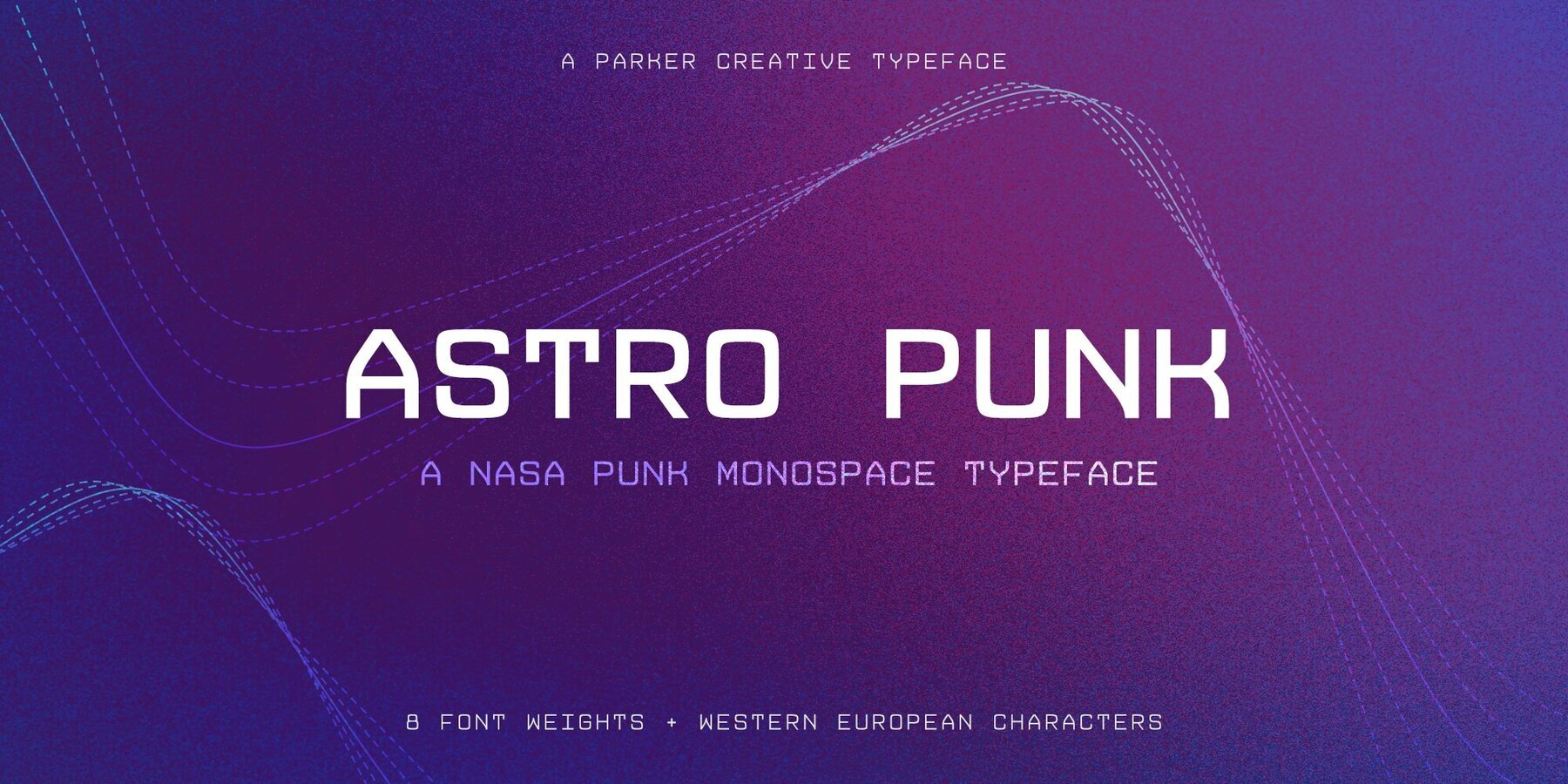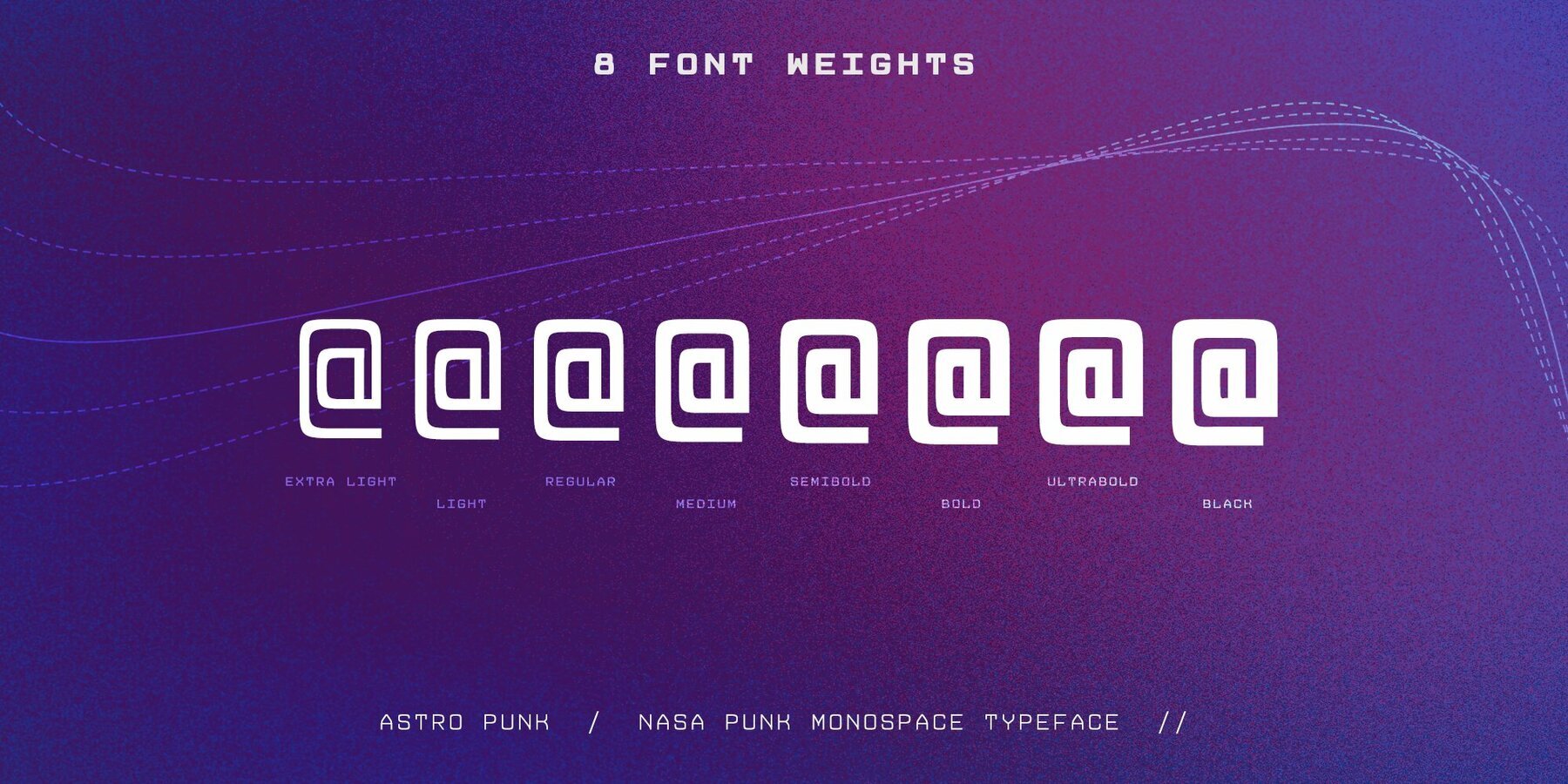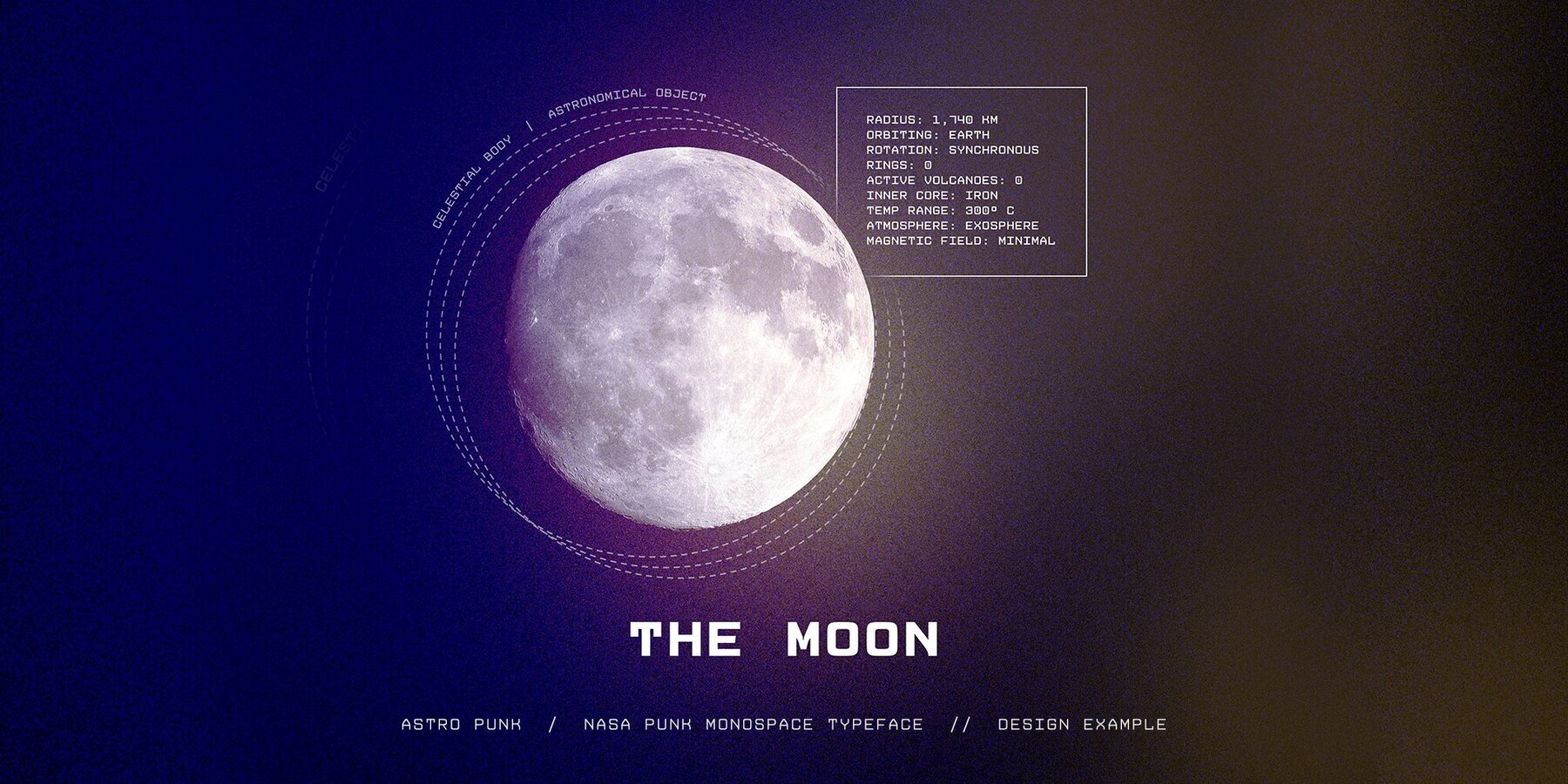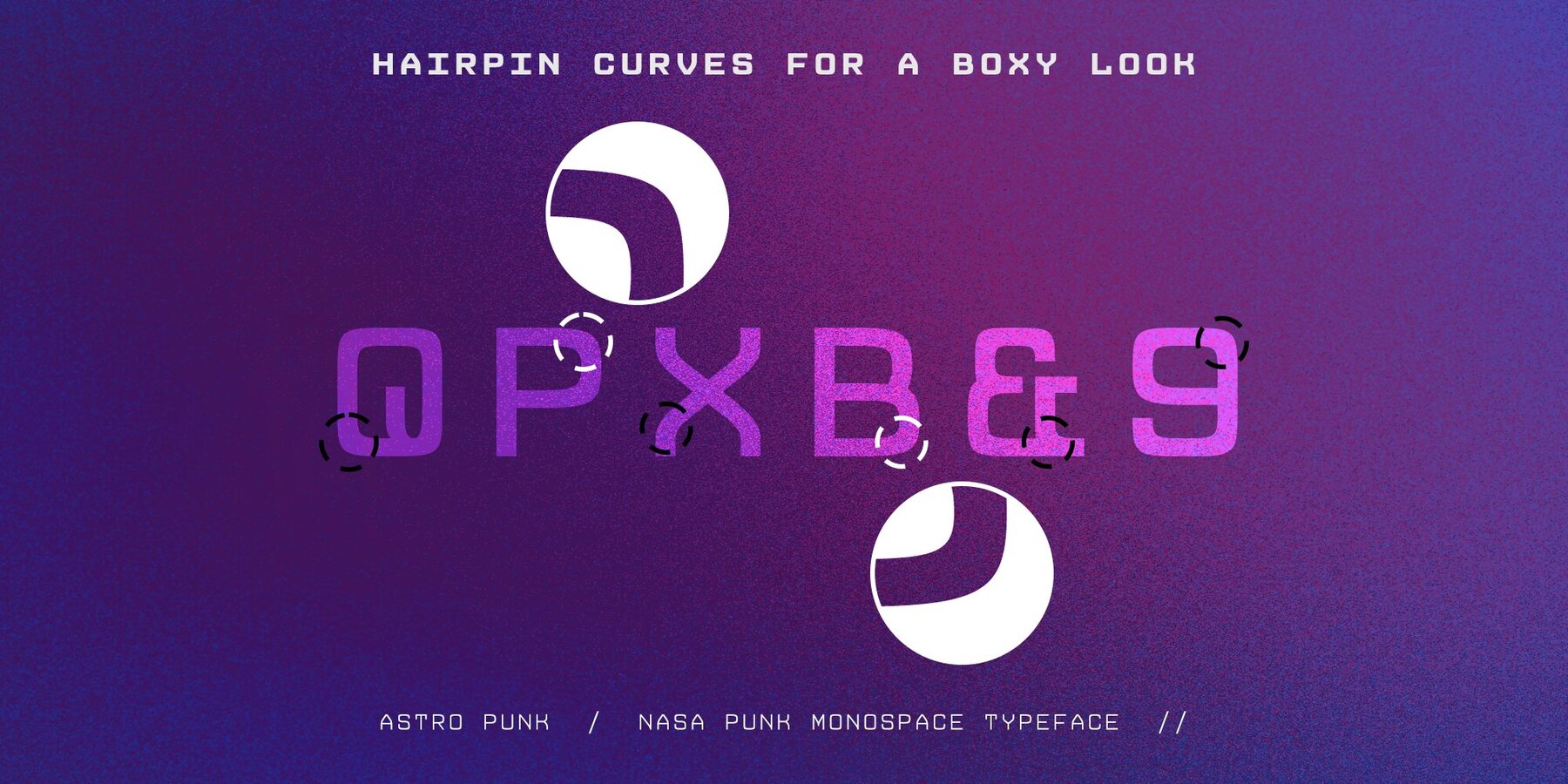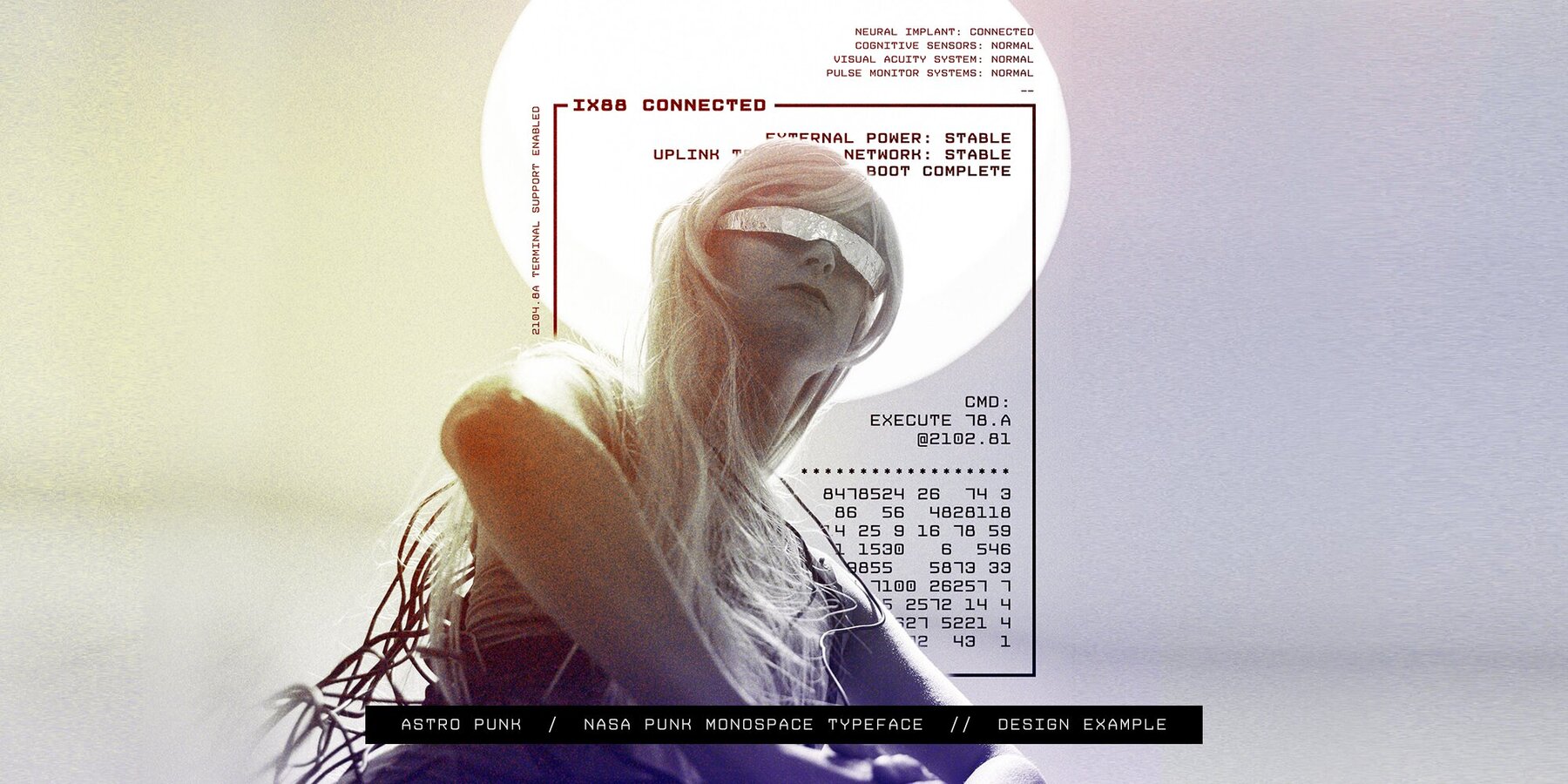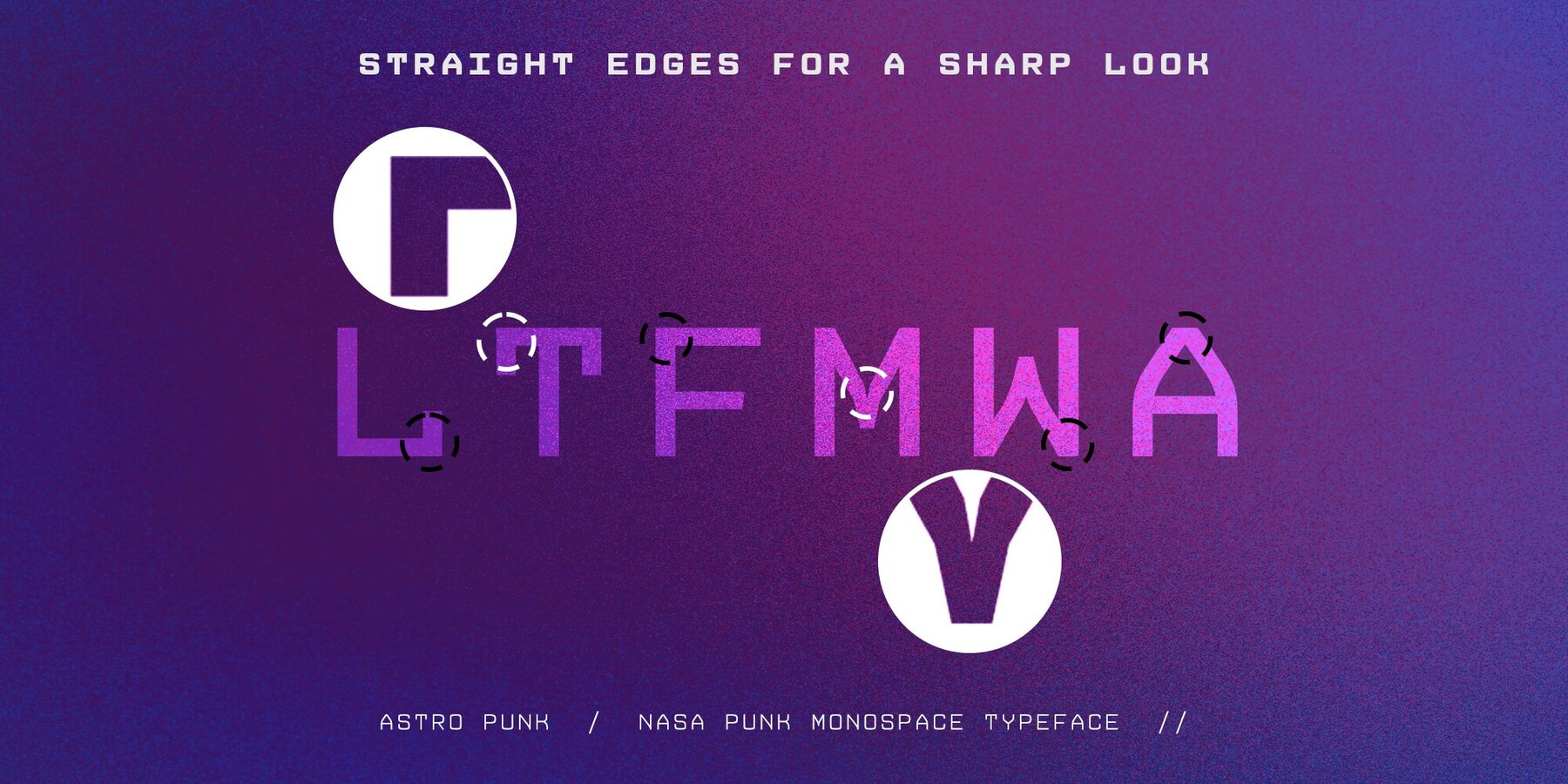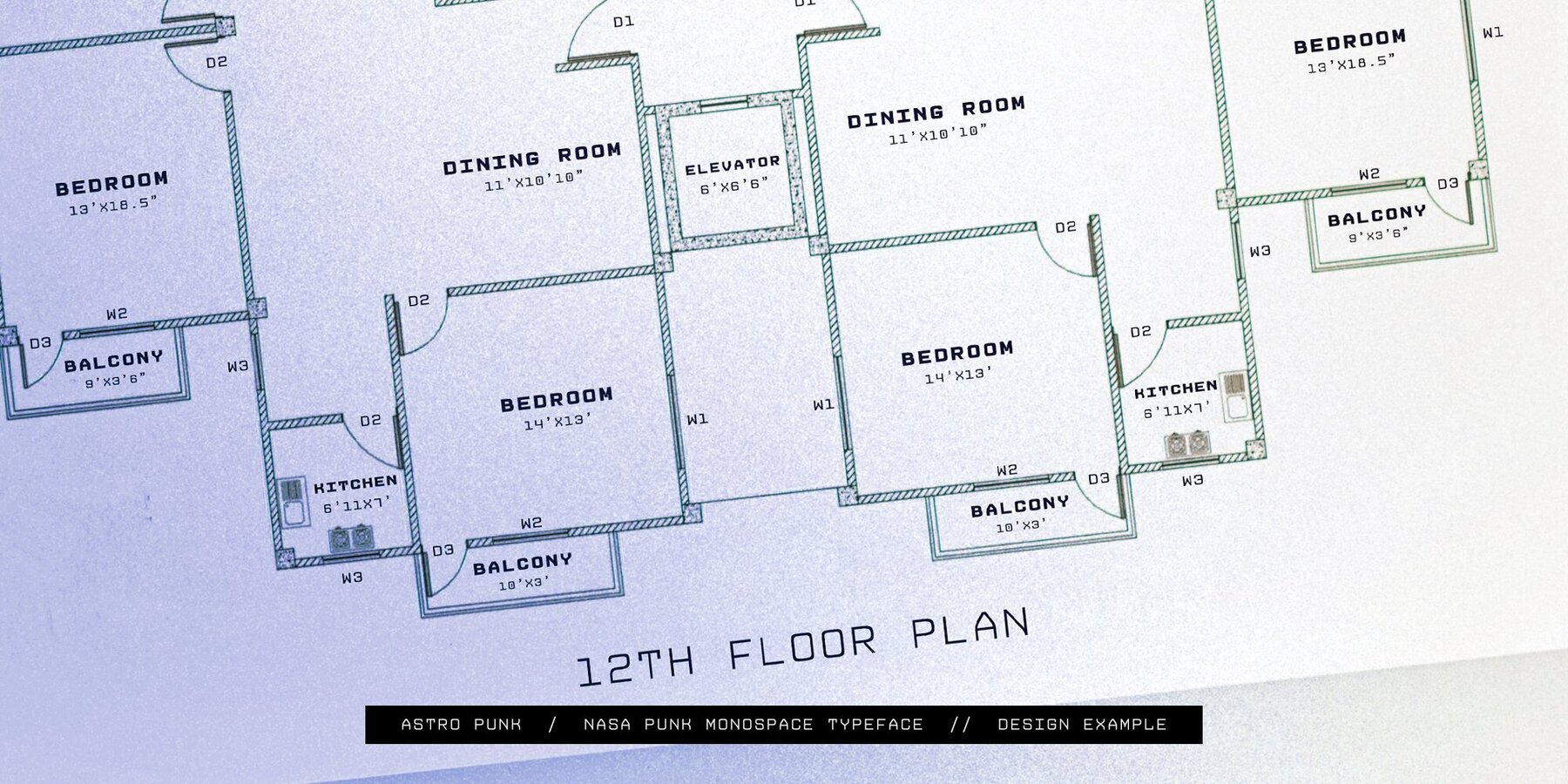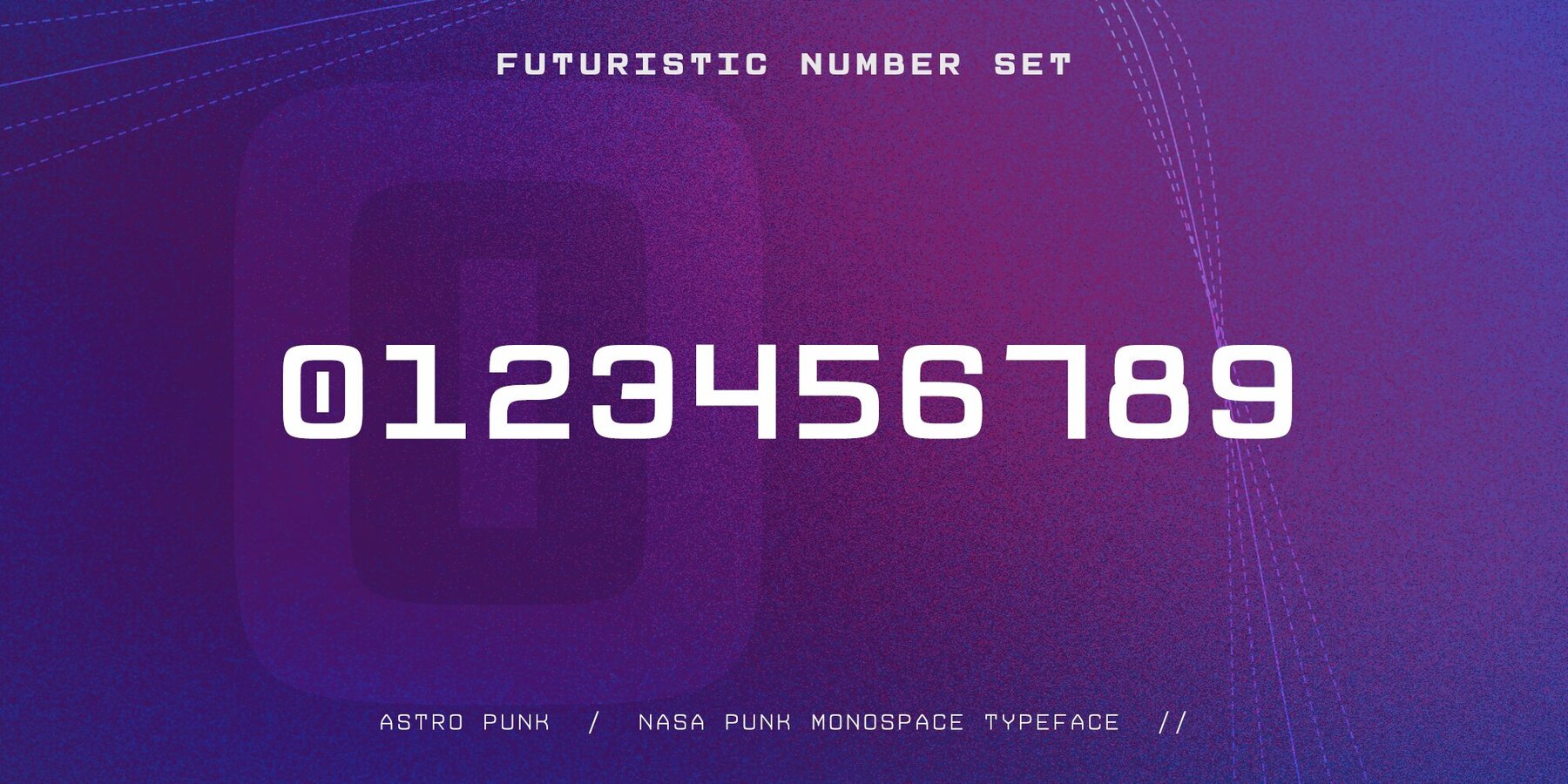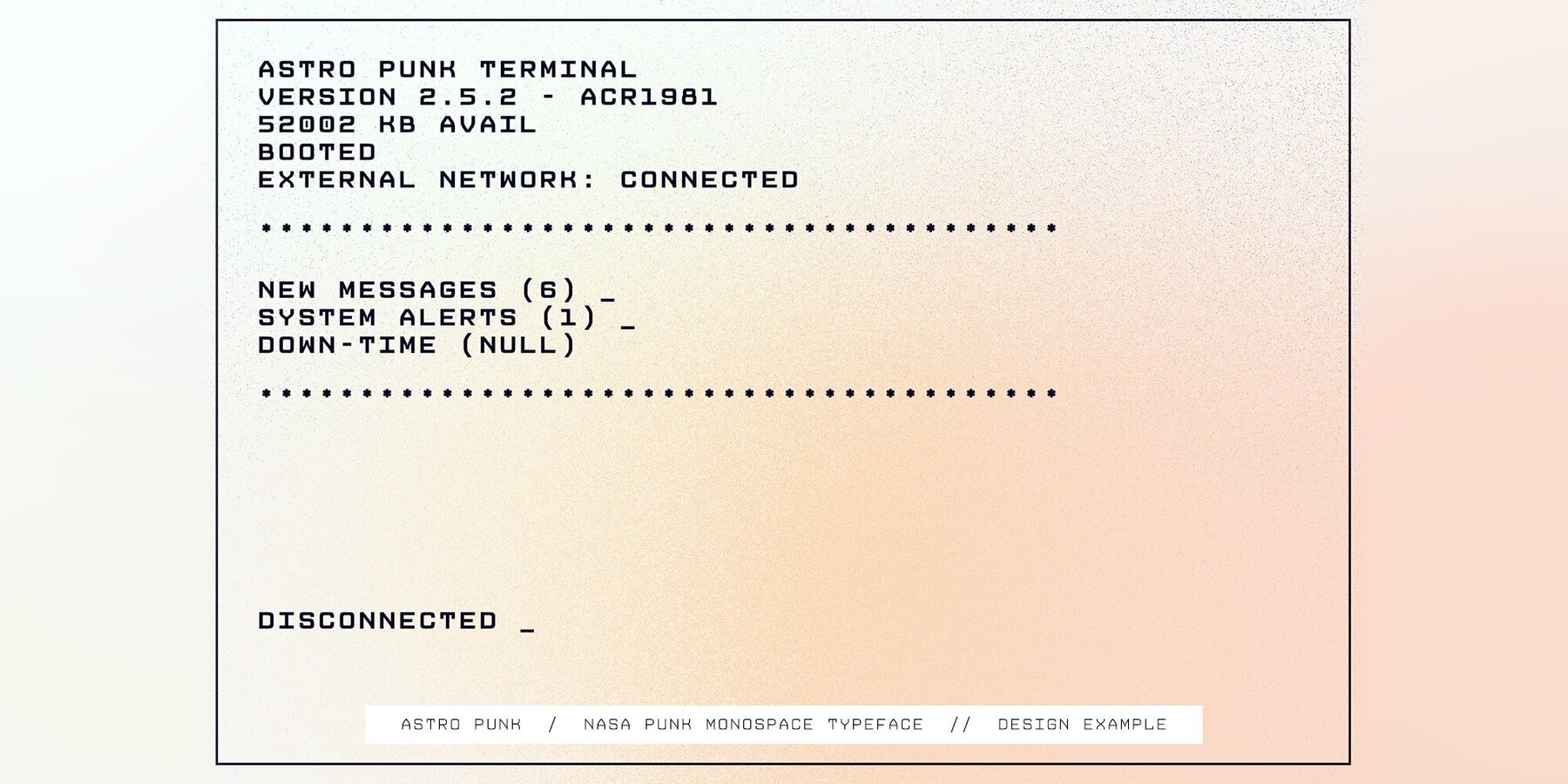
Astro Punk Font
Introducing Astro Punk, an original retro futuristic monospace typeface. Inspired by the look of computer technologies used during the 1960’s Space Race (NASA Punk), Astro Punk type delivers a boxy low-resolution computer console look with highly distinguishable character sets. These unique sets of characters, numbers, and symbols makes Astro Punk a great option for architectural documents, construction drawings, space-themed designs and other technical applications! The Astro Punk font family is made up of a wide range of font weights, making it an incredibly versatile typeface. Astro Punk’s individual font weights are meticulously balanced and mathematically instanced to ensure every detail is preserved on every weight. Astro Punk is a true monospace font, not requiring any kerning to appear visually aligned. It includes Western European character sets and a highly stylized number set and symbols.